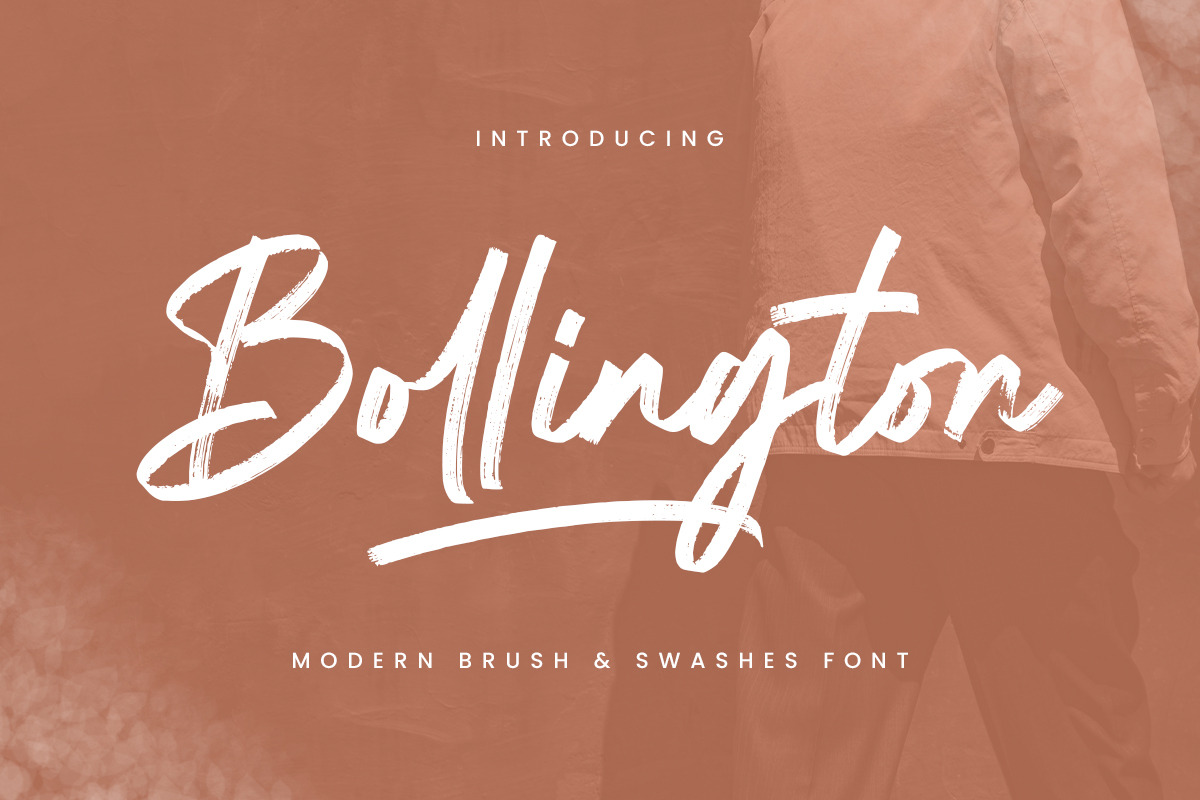
Bollington – Brush Script Font
Bollington is a modern brush script font that delivers an expressive, handcrafted feel with every stroke. Designed with bold, textured brush lines, it brings an authentic, artistic touch that feels both dynamic and effortlessly stylish.
Featuring elegant swashes and smooth flowing letterforms, Bollington is perfect for branding, packaging, posters, social media graphics, and any project that needs a personal yet contemporary handwritten look. Its natural brush texture adds depth and character, making your designs stand out with a warm, creative charm.
A perfect choice for designers seeking a modern brush font with personality and visual impact.
- Underline swashes
- Ending swashes